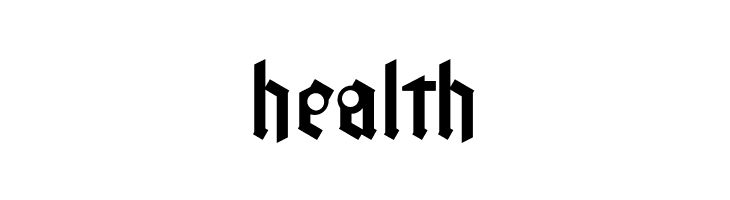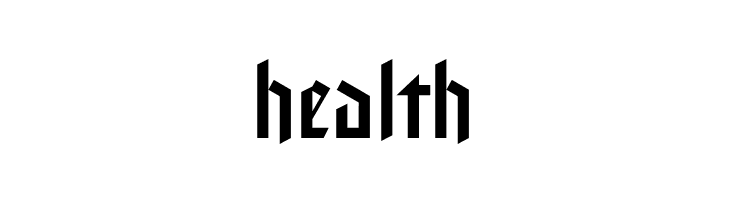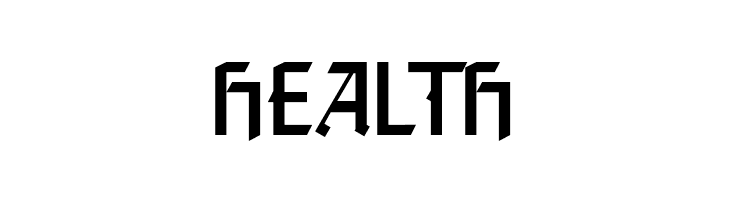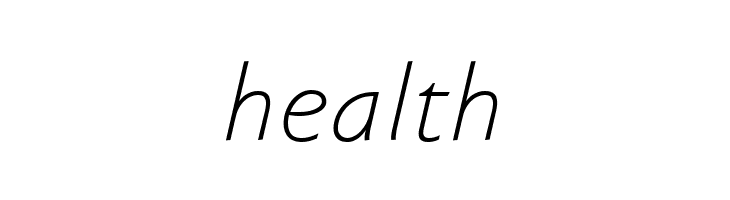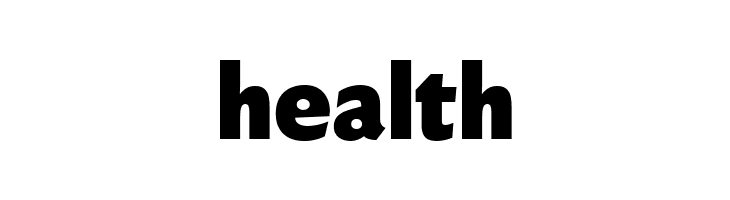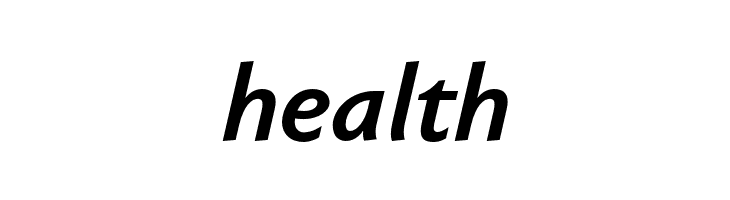
• FaberGotic-Capitalsreduced
A bold, angular blackletter font with high contrast and geometric influences.
• FaberGotic-Gothicreduced
A bold, angular Gothic-inspired font with a modern twist.
• FaberGotic-Textreduced
A bold, Gothic-style font with intricate, angular characters.
• FaberSansPro-Fett
• FaberSansPro-Halbfett
A modern sans-serif font with balanced weight and excellent readability.
• FaberSansPro-HalbfettKursiv
A modern, italic sans-serif font with medium weight and smooth strokes.
• FaberSansPro-Kraeftig
A modern, clean sans-serif font with balanced proportions and excellent readability.
• FaberSansPro-KraeftigKursiv
A modern, italic sans-serif font with smooth curves and consistent stroke width.
• FaberSansPro-Leicht
A clean, modern sans-serif font with a light weight and balanced proportions.
• FaberSansPro-LeichtKursiv
A modern, light, and italicized sans-serif font with medium contrast.